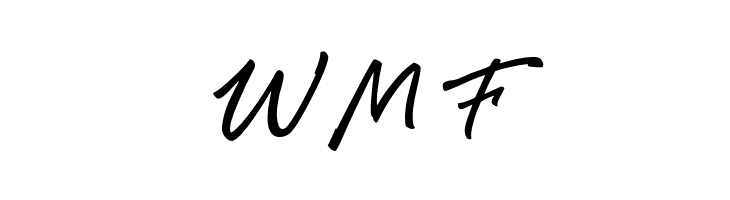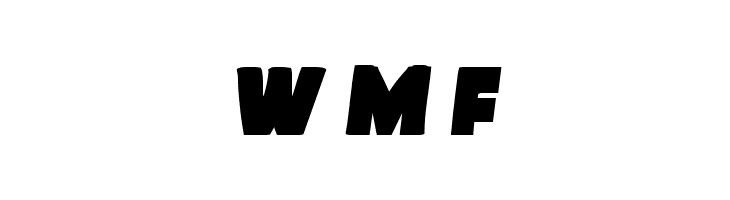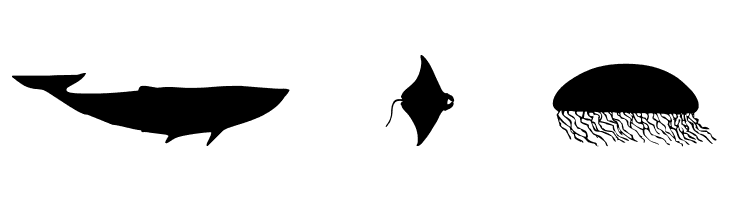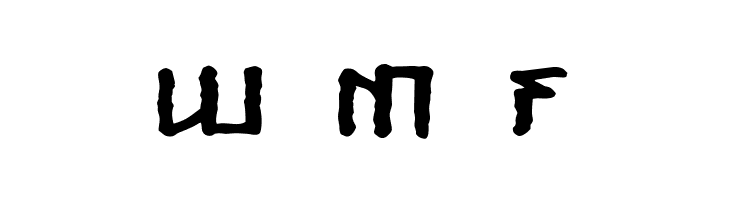
MLB Giants Font
A bold, geometric font with a modern and assertive style.
GiantsTeeth Medium Font
A playful, handwritten-style font with consistent stroke thickness and a casual appearance.
Giants of the Sea Font
A display font made from silhouettes of giant sea animals.
Giants Font
A bold, 3D shadowed font with a playful and dynamic style.
Siam Giants - Personal Use Font
A bold, dynamic script font with fluid, connected characters and elegant curves.
Giants Regular Font
A bold, rugged font with a hand-drawn, graffiti-like style.
GIANTS ITALIC PERSONAL USE Bold Italic Font
A bold, italicized font with a textured, vintage appearance.
Super Giants DEMO-Regular Font
A dynamic and energetic script font with a handwritten appearance.